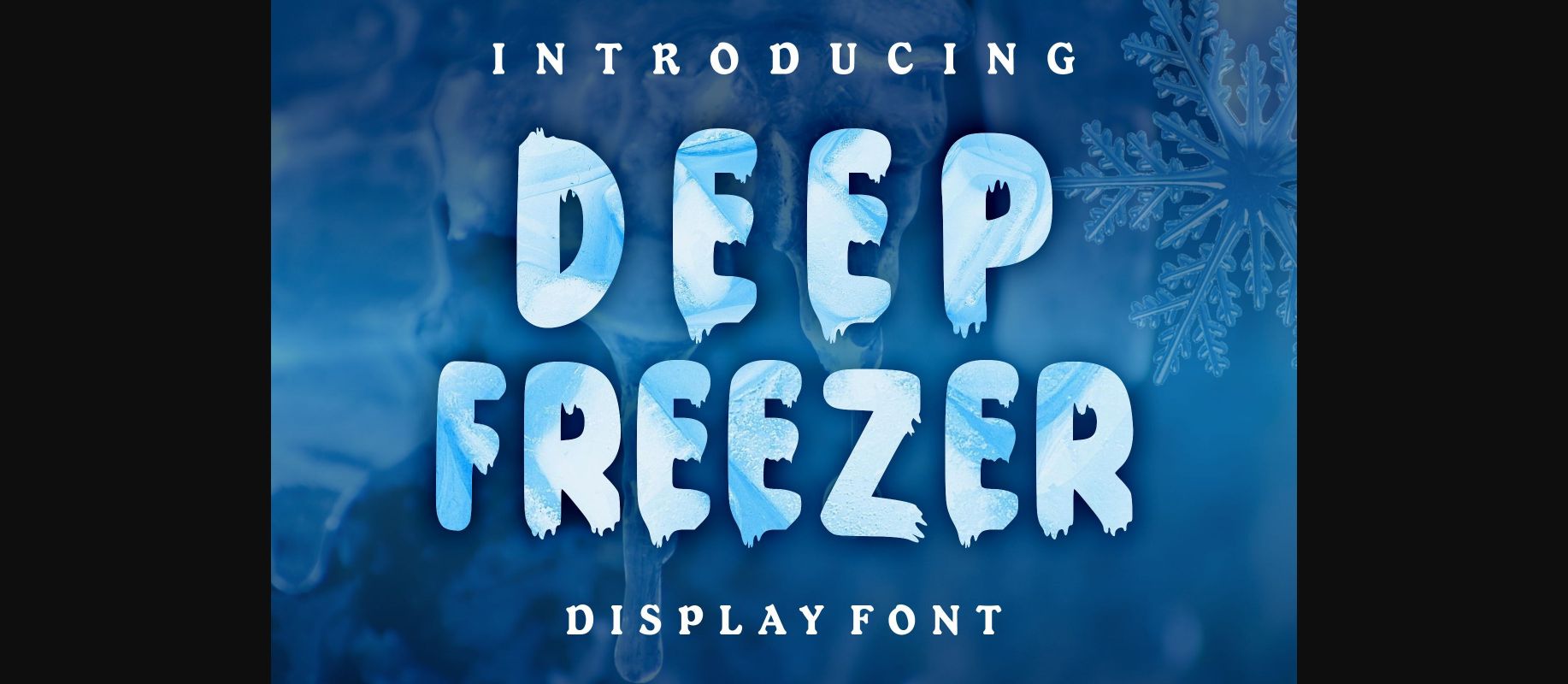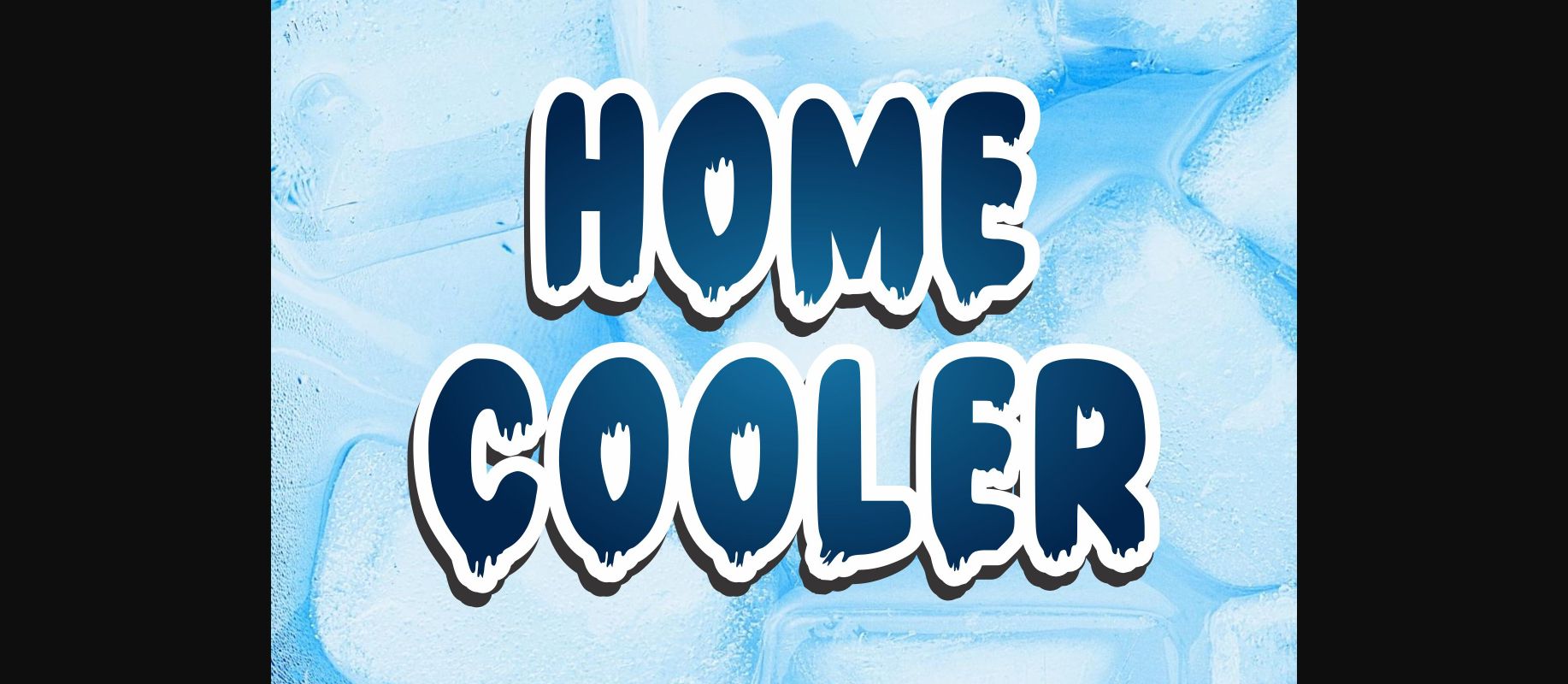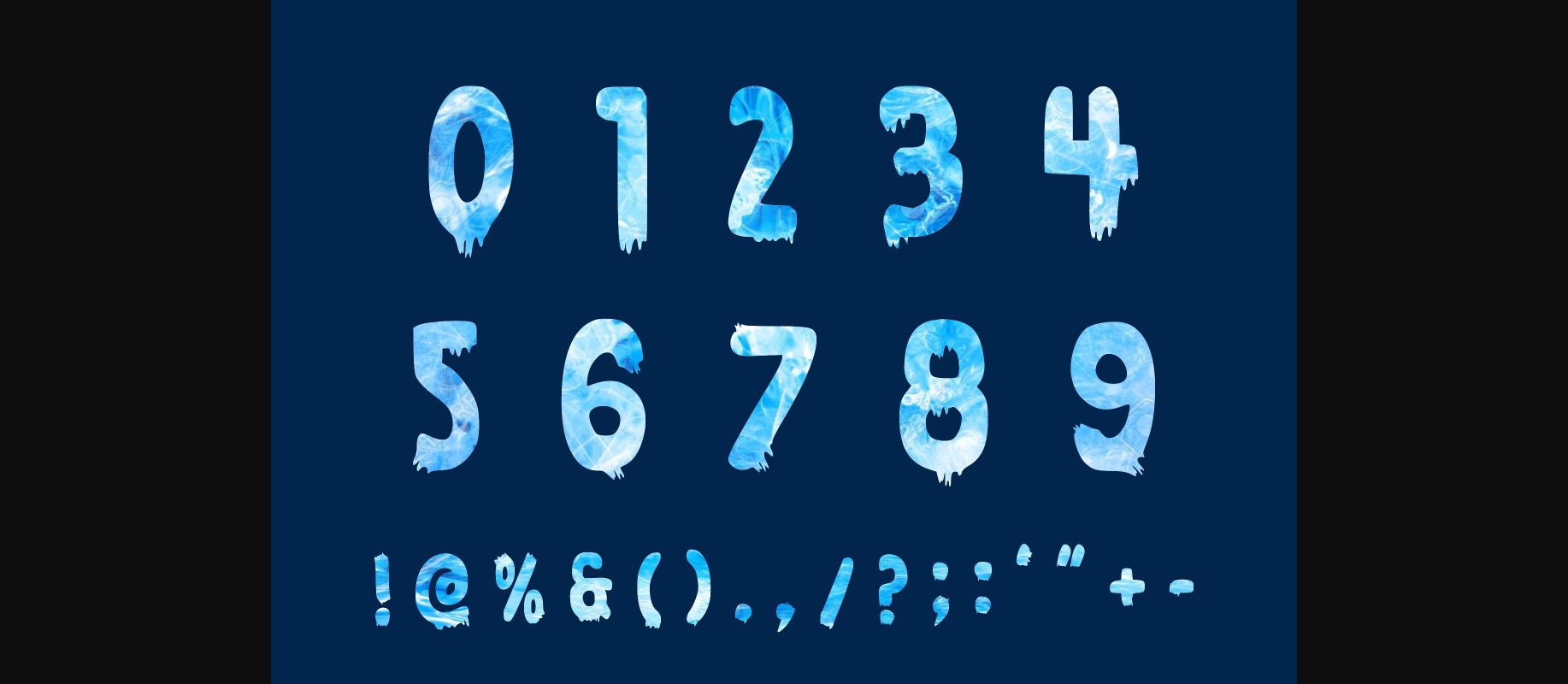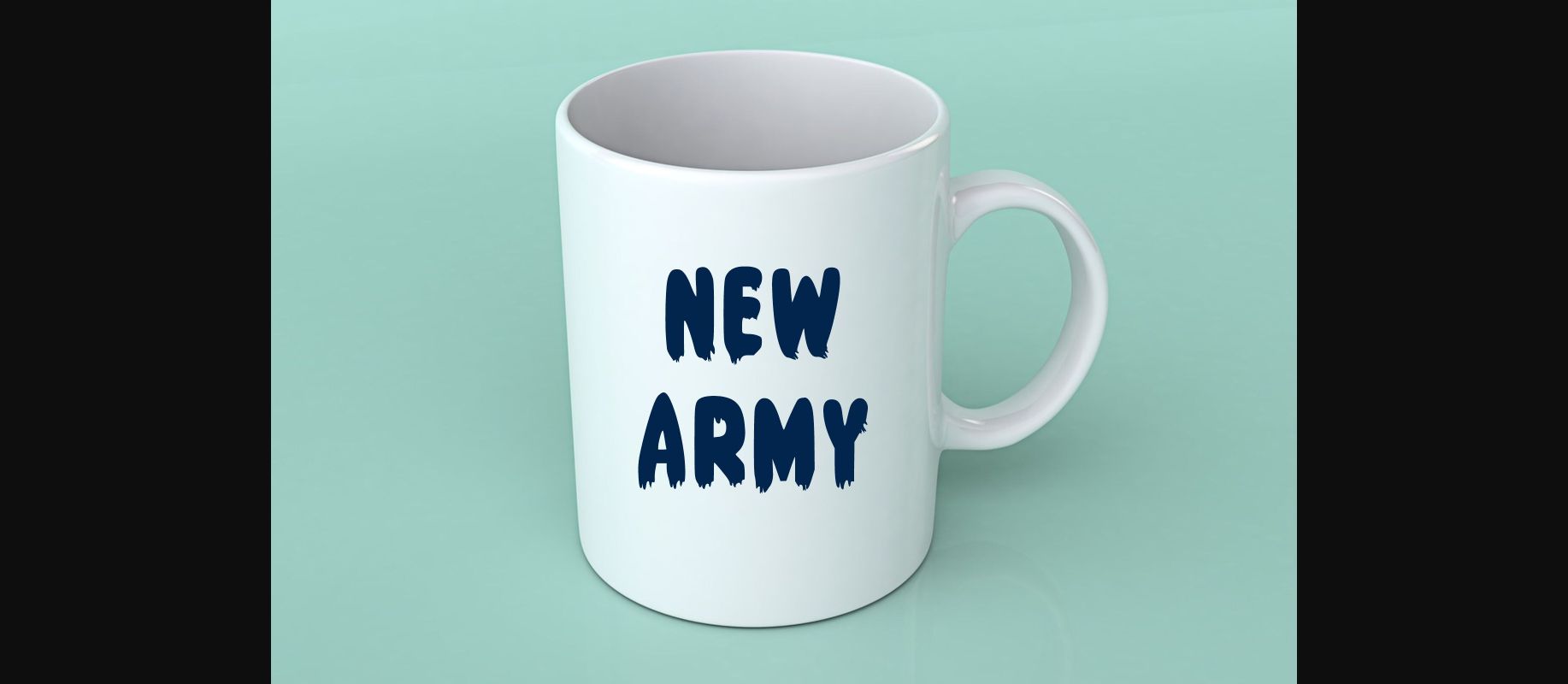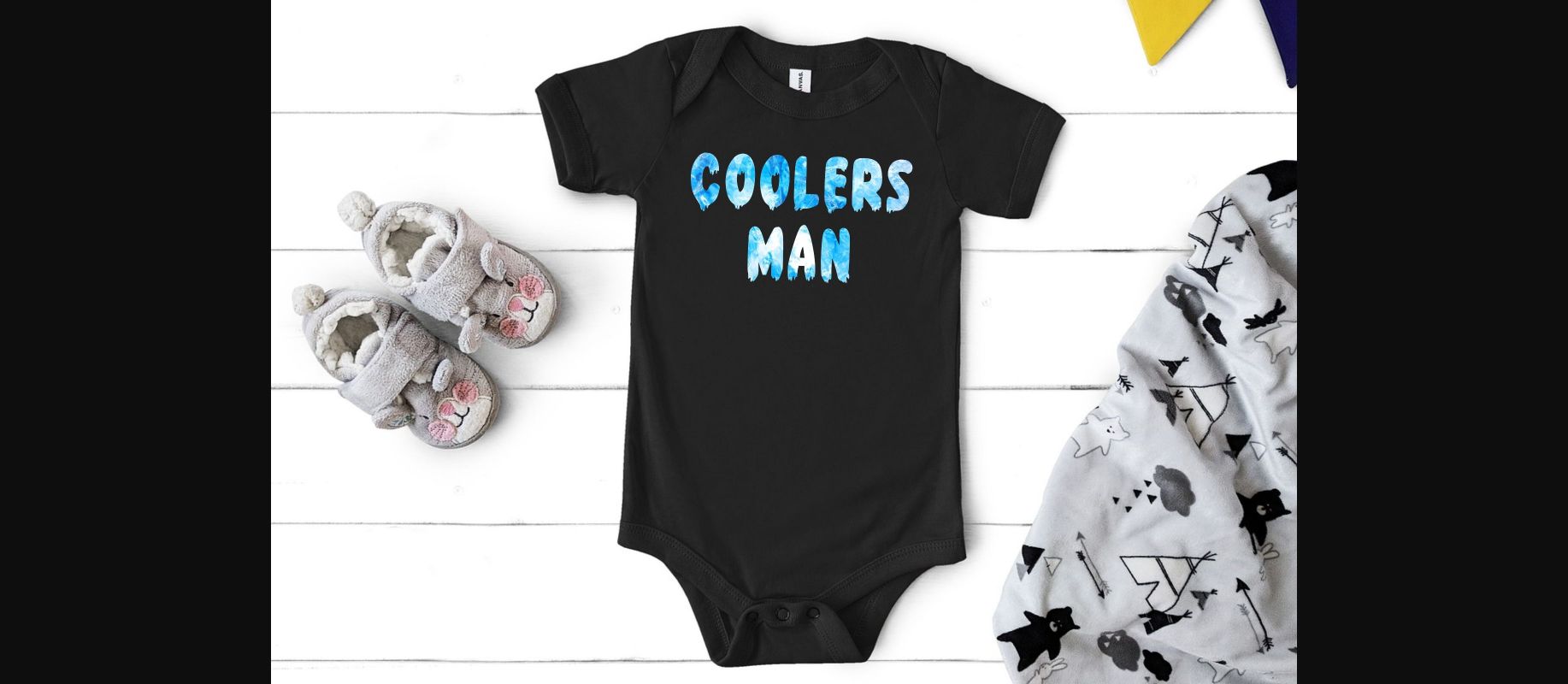
About Deep Freezer Font
Deep Freeze is a fun, lovely and wintery decorative font making it the ideal font for any winter project! It is the perfect choice for any children’s activity, Christmas, Thanksgiving, poster, logo, packaging, or school project.